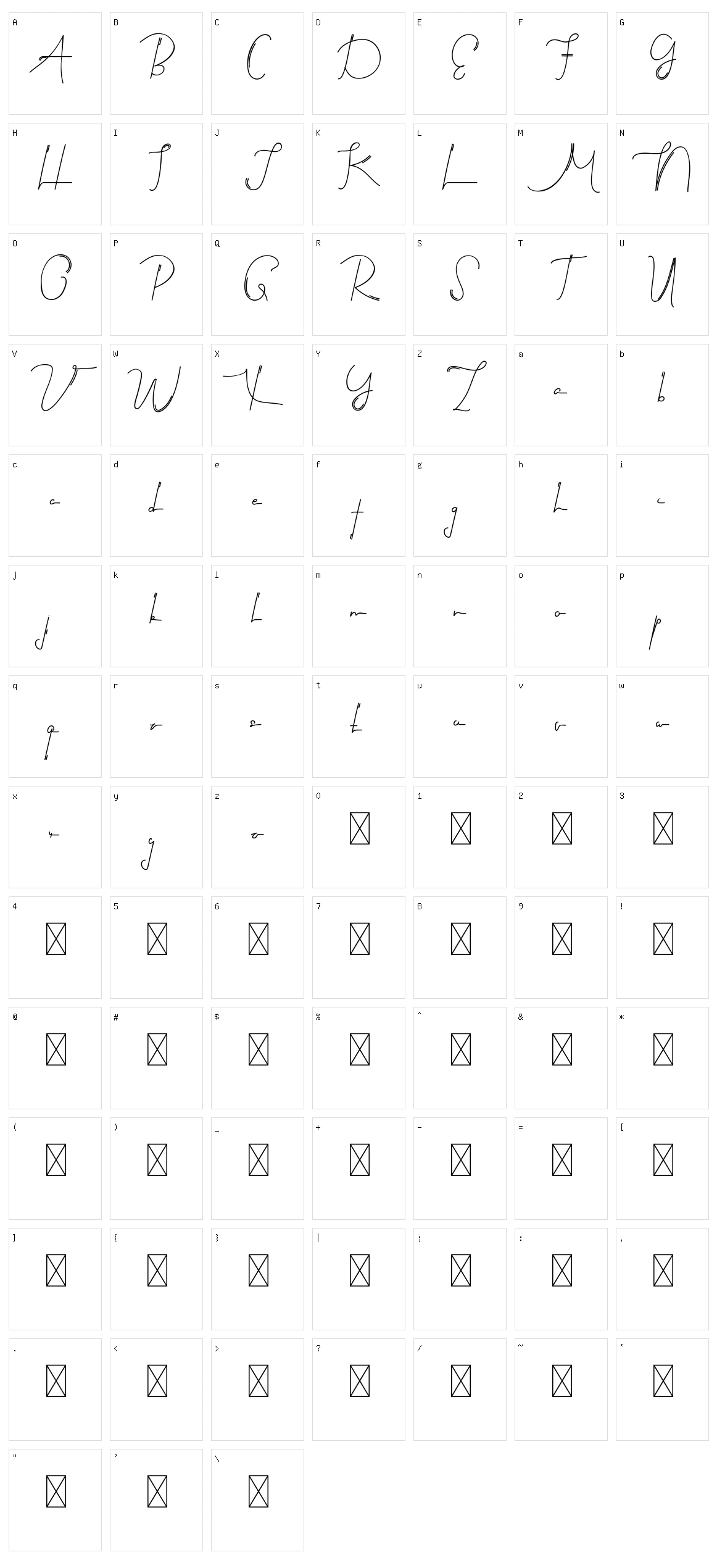
The free font Black Suit is carefully designed by Edric Studio, showcasing a thoughtful balance of creativity and usability and falls under the Script font style. When you download the ZIP file, it contains only 22.64 KB of font files, making it lightweight and quick to download. Please review the license details below to understand permitted usage and distribution rights. If license information is not available, we recommend using this font for personal projects only or contacting the author directly for commercial usage permissions.